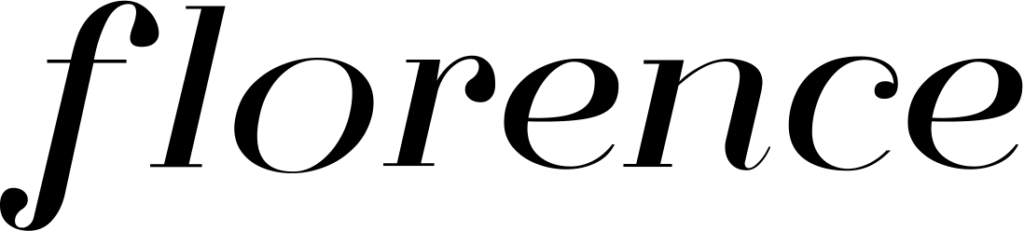
Florence Font
Florence with thin and delicate letters is one of the best serif fonts you can use for your text designs. It’s perfect for long passages, such as; flyers, books, websites, and so on. Don’t hesitate, to hit the download a…
Designed byLily Bather
Florence with thin and delicate letters is one of the best serif fonts you can use for your text designs. It’s perfect for long passages, such as; flyers, books, websites, and so on. Don’t hesitate, to hit the download and see how astonishing it appears. If you want more luxury serif fonts, dive deeper into our site and enjoy hundreds of freebies.